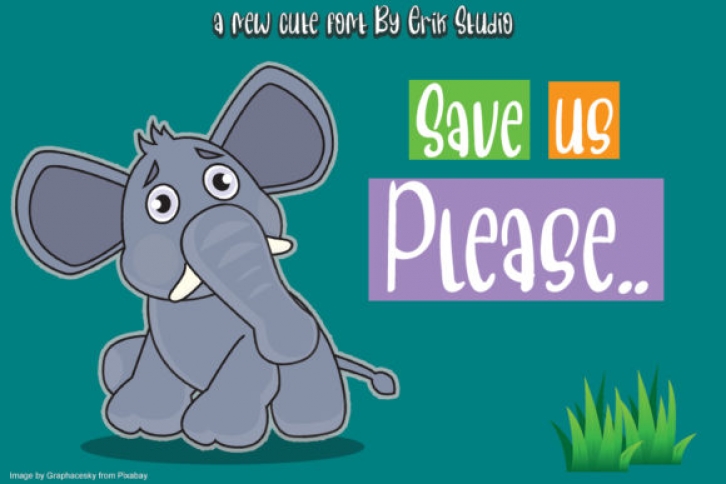
Save us please is a cute & friendly display font. Get inspired by its incredibly youthful feel. Add this chunky lettered font to your designs and notice how it makes them come alive!